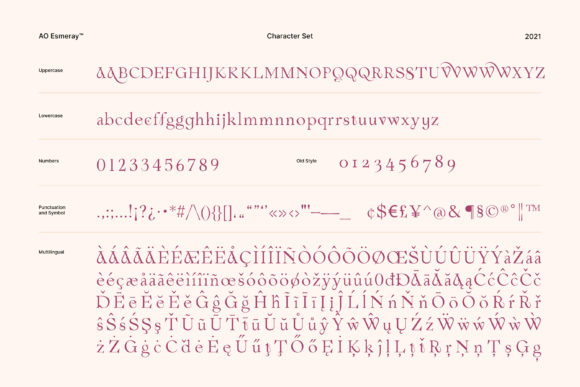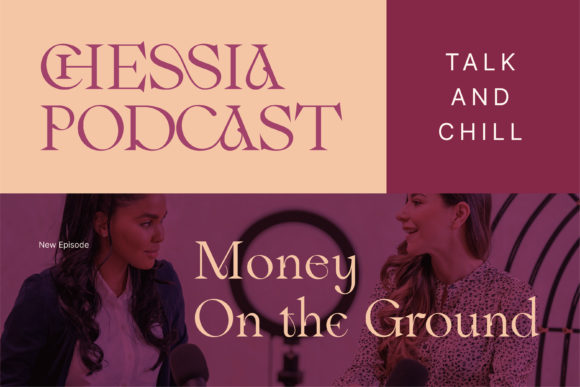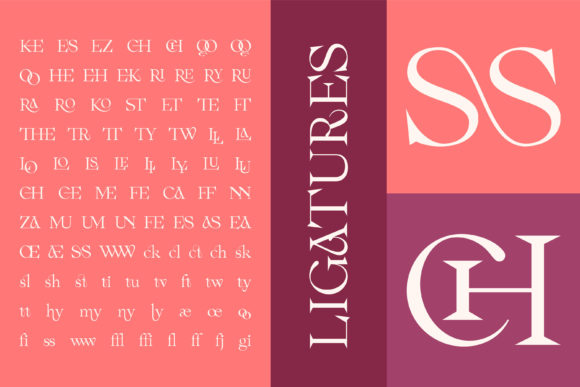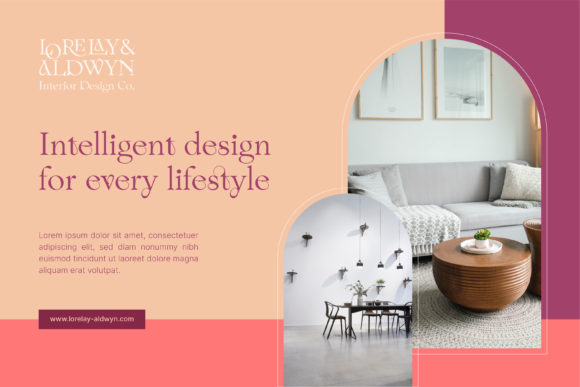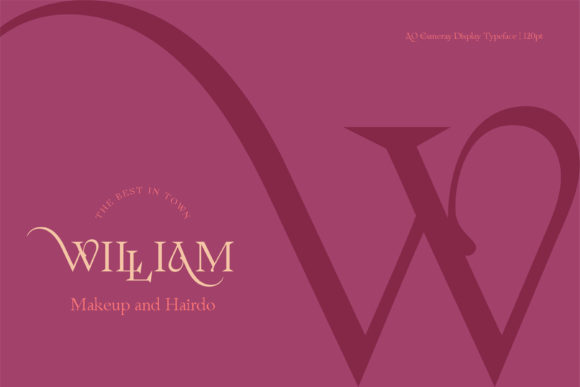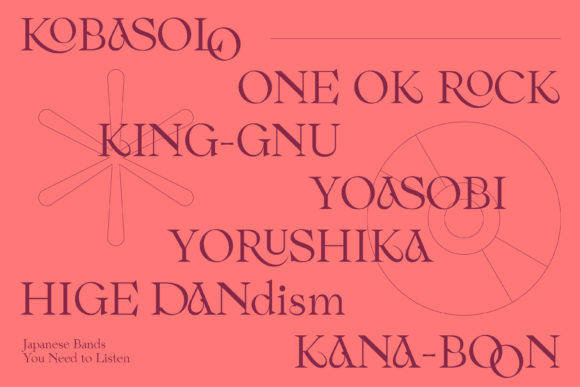
Introducing AO Esmeray Font: Elevate Your Designs with Modern Elegance
In the world of typography, a font can make or break a design. For designers and crafters seeking to add a touch of sophistication and modernity to their projects, AO Esmeray Font is an exceptional choice. This stunning serif font is designed to bring a level of elegance and class to various design applications, making it a versatile tool for creative professionals.
What is AO Esmeray Font?
AO Esmeray is a modern and classy serif font that embodies the perfect blend of contemporary style and traditional typographic elements. Its sharp weight look gives it a distinctive edge, making it ideal for designs that demand attention and sophistication. Whether you’re working on a high-end brand campaign, a stylish poster, or an elegant magazine layout, AO Esmeray is engineered to enhance your creative output.
Key Features of AO Esmeray Font
One of the standout features of AO Esmeray Font is its extensive collection of stylish ligatures and alternates. These typographic elements allow designers to add a personal touch to their work, creating unique and visually appealing text arrangements. The inclusion of ligatures and alternates means that AO Esmeray offers a wide range of creative possibilities, making it a highly versatile font for various design projects.
AO Esmeray Font is not limited to a specific type of design; its versatility allows it to shine across a broad spectrum of applications. Here are some of the many ways you can utilize AO Esmeray to elevate your designs:
- Posters: Create eye-catching posters with AO Esmeray’s bold and elegant presence.
- Magazines: Add a touch of class to your magazine layouts with this sophisticated serif font.
- Branding and Logos: Establish a strong brand identity with AO Esmeray’s modern and classy aesthetic.
- Labels and Merchandise: Enhance your product labels and merchandise with a stylish and contemporary look.
- Presentations: Elevate your presentations with a font that exudes professionalism and elegance.
- Advertising: Make your advertisements stand out with AO Esmeray’s sharp and stylish appearance.
- Cards and Quotes: Add a touch of sophistication to greeting cards, quotes, and other personal projects.
Why Choose AO Esmeray Font?
Choosing AO Esmeray Font for your design projects comes with numerous benefits:
- Unique Style: AO Esmeray offers a distinctive style that sets it apart from more traditional serif fonts.
- Elegance and Sophistication: Bring a level of elegance and sophistication to your designs that captures attention.
- Versatility: Use AO Esmeray across various design applications, from print to digital media.
- Easy to Read: Despite its elegant and modern look, AO Esmeray maintains excellent readability.
AO Esmeray Font is a powerful tool for designers and crafters looking to infuse their projects with a modern, classy aesthetic. Its combination of stylish ligatures, alternates, and a sharp weight look makes it an excellent choice for a wide range of design applications. Whether you’re aiming to create stunning posters, sophisticated brand identities, or elegant magazine layouts, AO Esmeray is equipped to help you achieve your creative goals. Elevate your designs with the elegance and versatility of AO Esmeray Font.